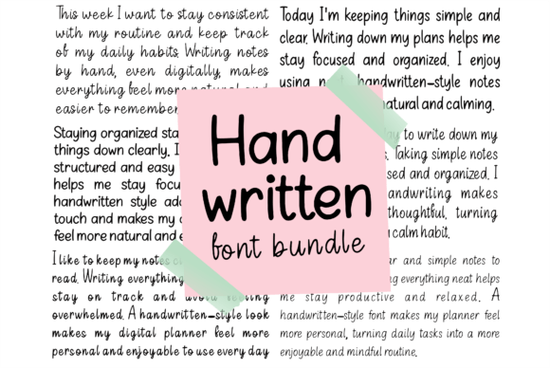
If you want your digital planners and personal blogs to feel less like a sterile spreadsheet and more like a real journal, typography makes all the difference. The Handwritten Font Bundle Font collection gives you a variety of natural scripts that mimic the cozy aesthetic of pen on paper. Whether you are designing habit trackers for a small business or just organizing your own daily notes, these styles bring a warm, human touch to your screen.
How can I make my digital planner look more personal?
Digital planning in apps like GoodNotes or Notability often relies on default, rigid fonts that can make your layouts feel clinical. To turn those standard templates into a mindful routine, you need typography that feels intentional and cozy. Using natural scripts for your daily entries, weekly spreads, and monthly goals makes the experience feel intimate.
You do not have to use the same script for everything. For instance, you might pair a flowing cursive for your daily journal entries with a clean social script for your monthly headers to keep things highly readable. This mix of styles mimics how we actually write in physical notebooks, using different pressures and speeds for different types of notes.
What types of projects work best with everyday handwriting styles?
Print-on-demand sellers, crafters, and small business owners constantly look for fonts that feel approachable and authentic. When you are creating merchandise like ceramic mugs, canvas tote bags, or vinyl decals, you want the text to feel like a friend wrote it by hand.
A casual, flowing script works beautifully for inspirational quotes on apparel or wall art. It feels relaxed and modern. Similarly, if you are designing greeting cards, wedding invitations, or planner stickers, mixing a bold print with a friendly duo font set gives your physical products a handmade vibe. Customers actively seek out these intimate, personalized details because they stand out against mass-produced, corporate-looking designs.
How do I choose the right script for my specific project?
The key is matching the mood and function of your design. Not all handwriting is created equal. For a neat, structured print that is easy to read at smaller sizes, look for styles that mimic everyday print handwriting. These are perfect for longer quotes or detailed planner inserts.
If you want something more expressive and energetic, a playful swinging script adds a lot of personality to short phrases, logos, or social media graphics. The Handwritten Font Bundle gives you both structured and casual options in one place, saving you from having to guess which style fits best when you are on a tight deadline.
Can I use these fonts for my small business branding?
Absolutely, but it requires a few smart choices. You would not use a heavy, looping cursive for your website's main body text or long product descriptions. However, these scripts are perfect for your logo, social media graphics, packaging details, or shop banners.
Browsing through the complete handwritten collection allows you to find a signature style that represents your brand's unique voice. Using a consistent handwritten font across your social media stories, thank you cards, and product tags builds a cohesive, recognizable brand identity that feels trustworthy and human.
Quick tips for using handwritten fonts in your designs
- Limit your script usage: Use handwritten styles for headings, quotes, or short phrases, and always pair them with a clean, simple sans-serif for your main body text.
- Check the ligatures and alternates: Many natural scripts include alternate characters and swashes. Turn on ligatures in your design software to see the full, connected flow of the letters and avoid awkward overlaps.
- Test for readability: Always zoom out or print a physical test page. If a cursive style becomes hard to read at a small size, switch to a neater print version from the bundle.
- Mind your kerning: Handwritten fonts sometimes have unique spacing. Adjust the letter spacing manually if words feel too cramped or too far apart.
Start by importing your favorite styles into your design software and creating a simple mood board. This helps you see how the different weights and slants work together before you begin your final project, ensuring your designs look polished and professional.